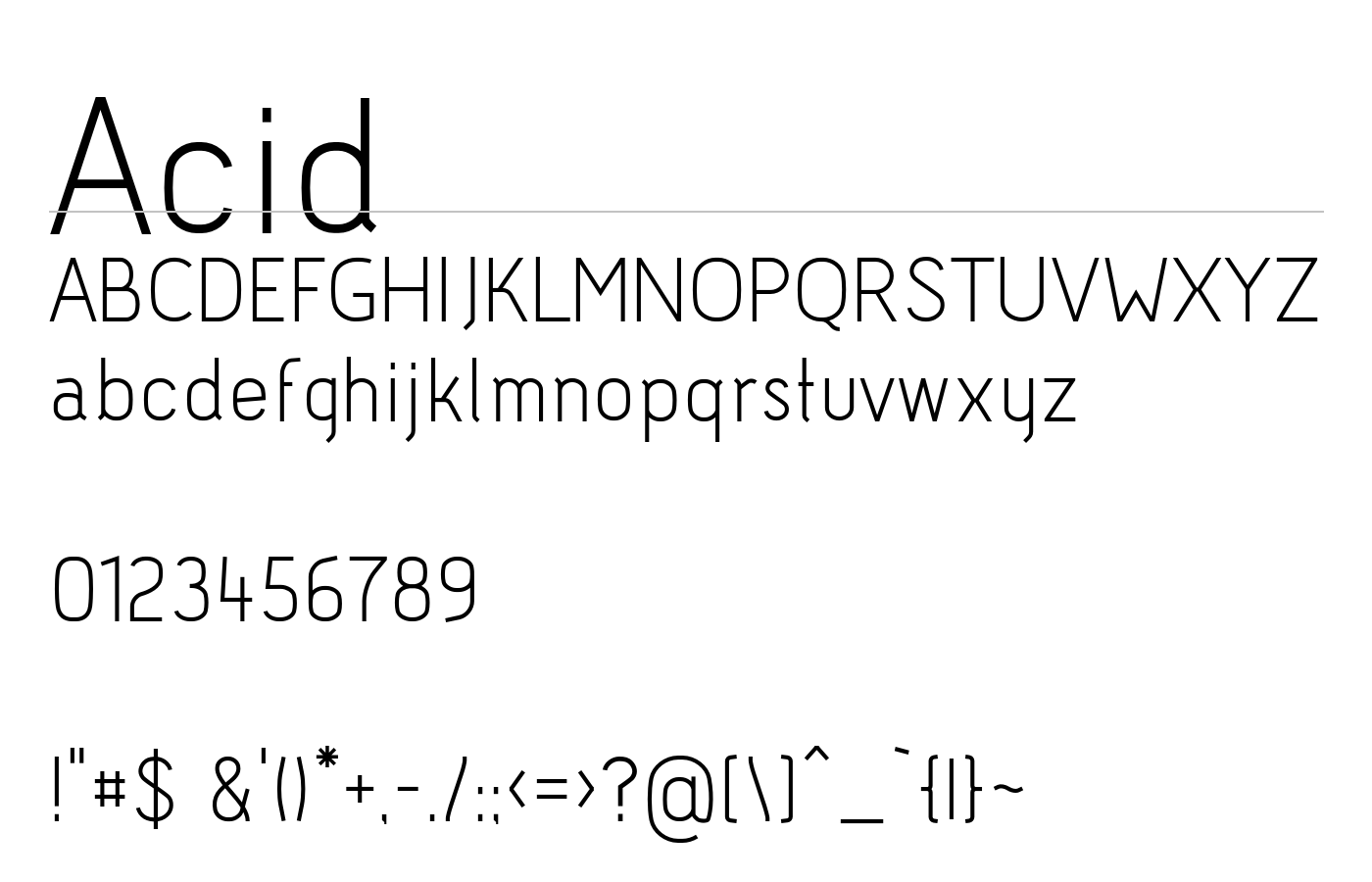
Acid is a sleek, modern sans serif font characterized by its tall, narrow letterforms and low stroke contrast, giving it a clean and minimalist appearance. Its slightly condensed width and distinctive geometric shapes make it ideal for contemporary branding, editorial headlines, and web design where clarity and sophistication are key. This font’s fine lines and straightforward style convey a sense of precision and forward-thinking elegance, perfect for fashion, tech, and lifestyle projects seeking a sharp, professional look.
Acid Font
About Acid Font
| Font family | Acid Font |
| Designer | Stephan Baum |